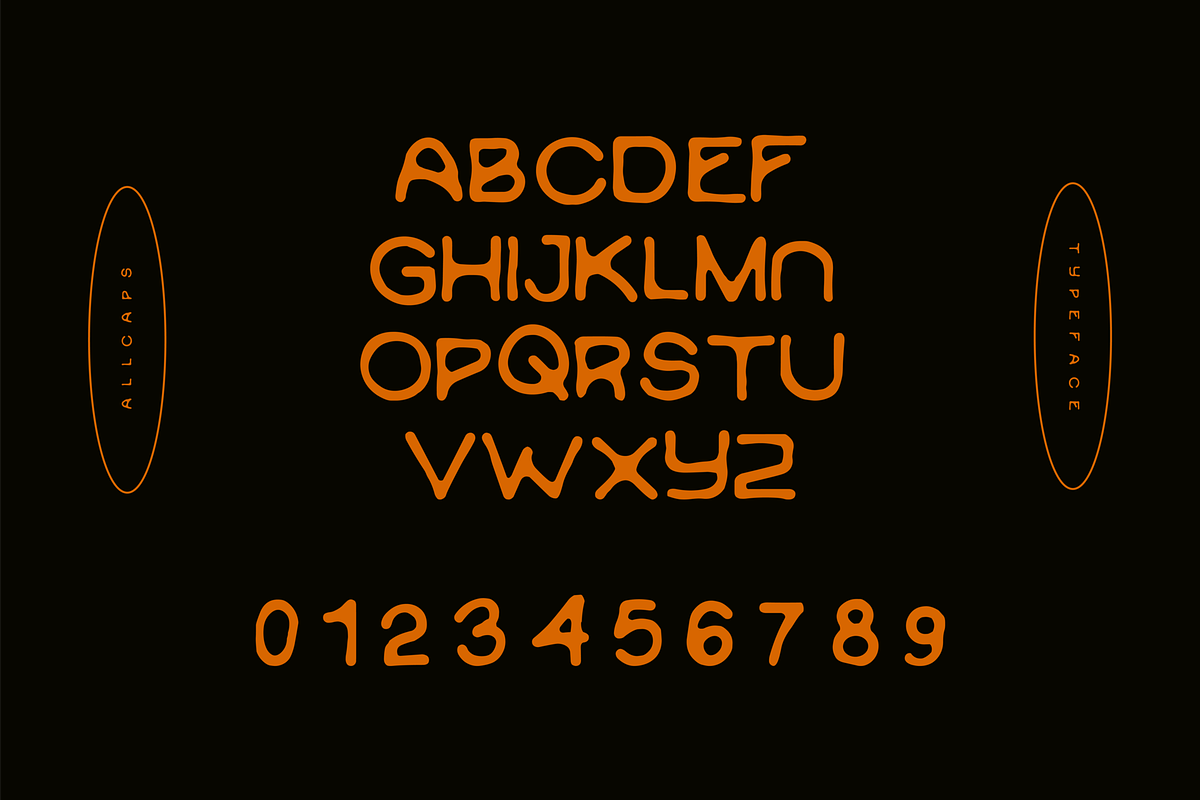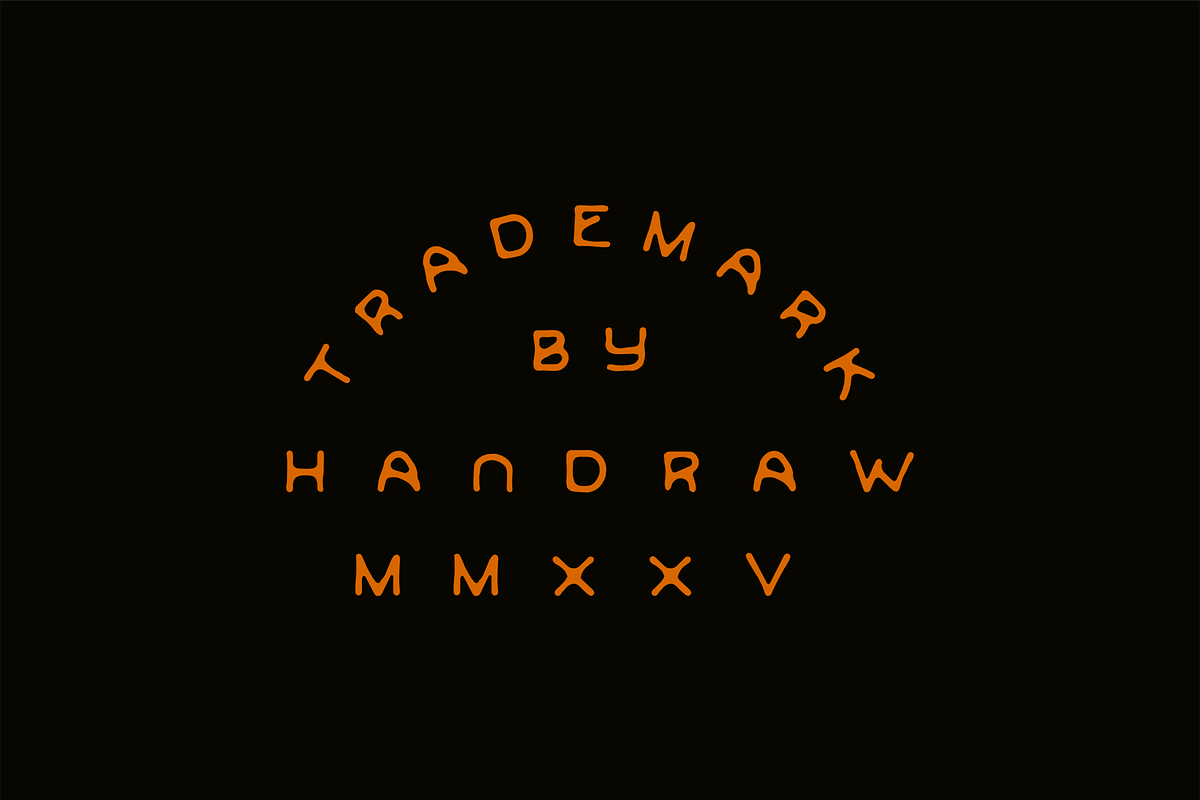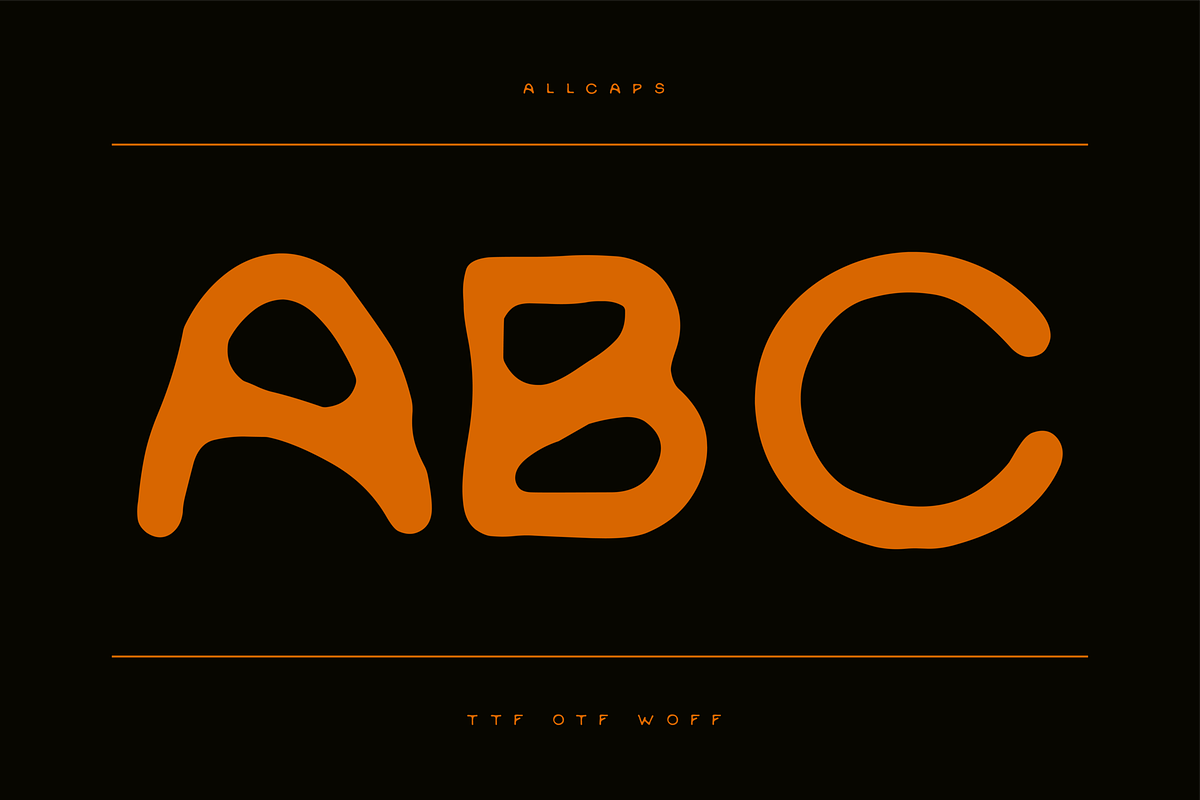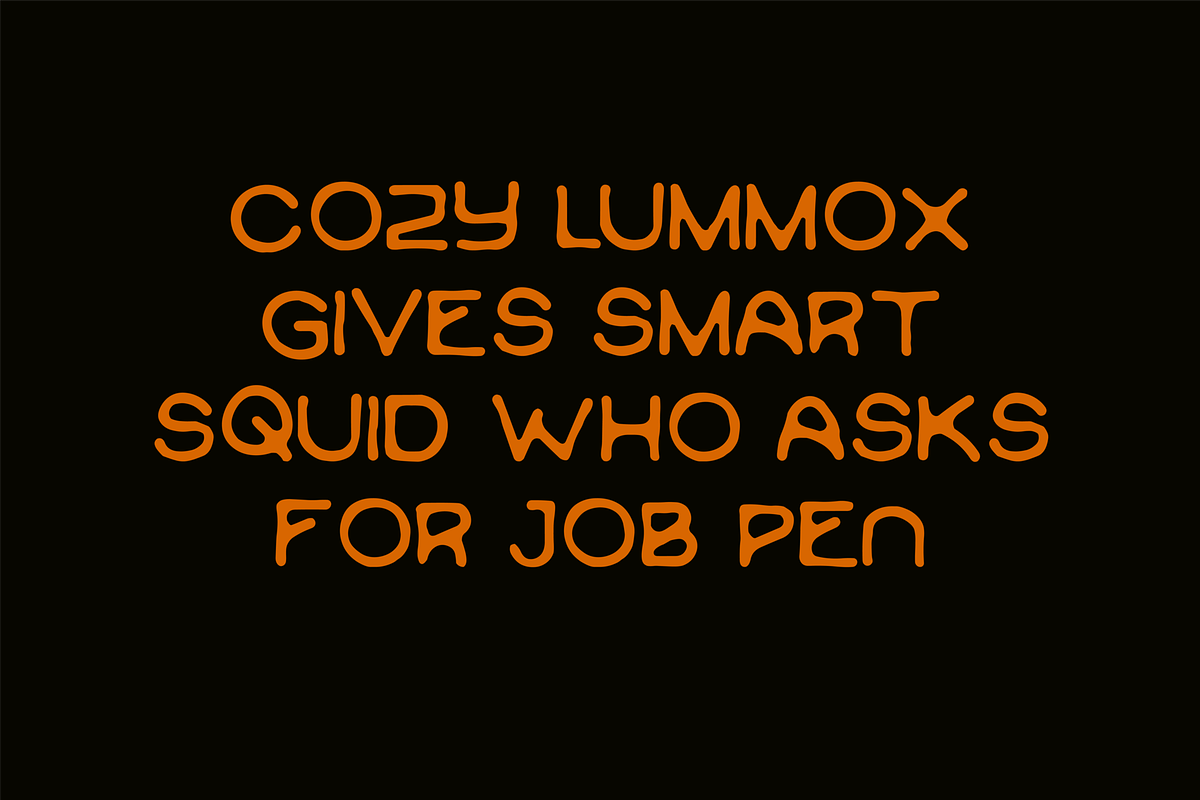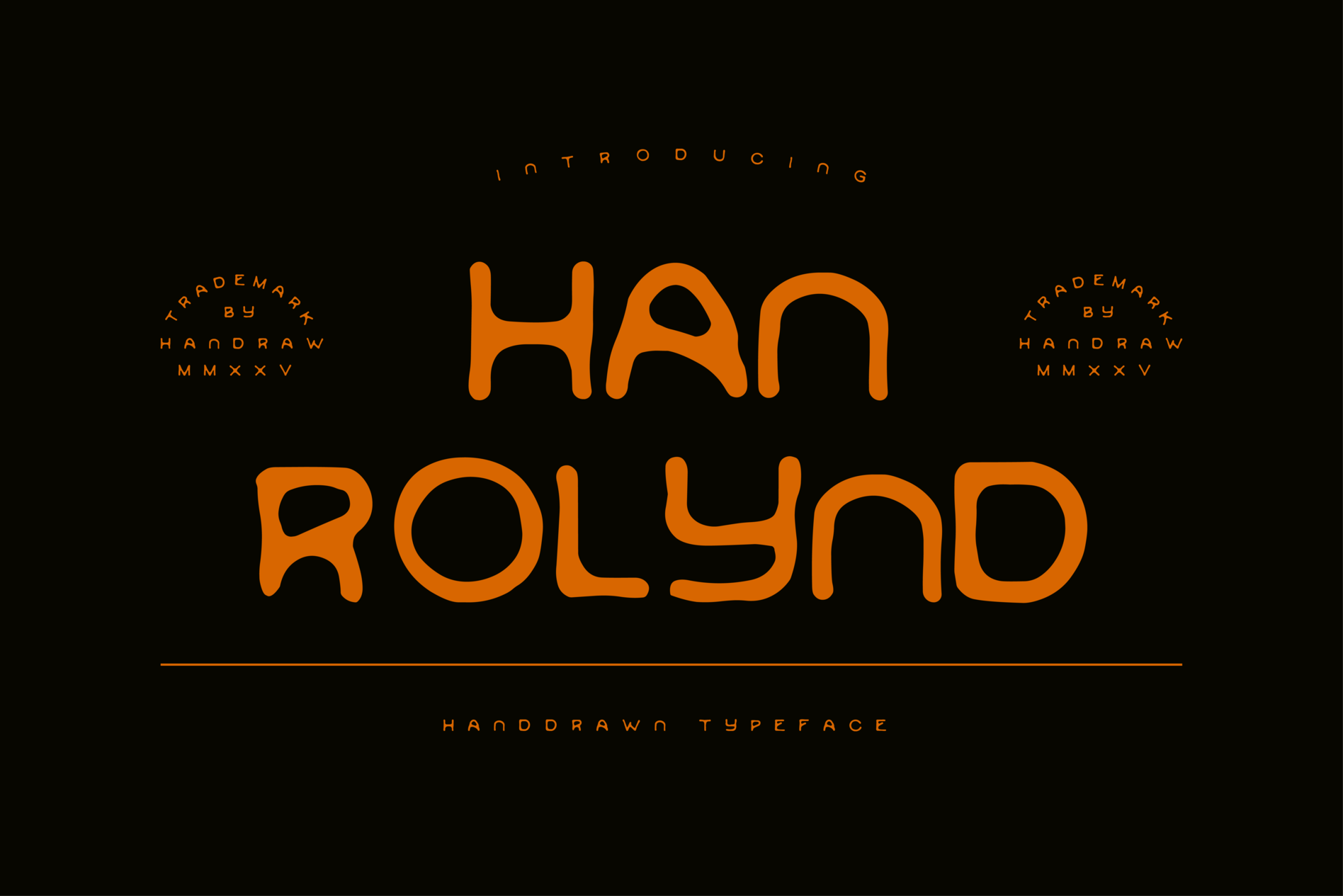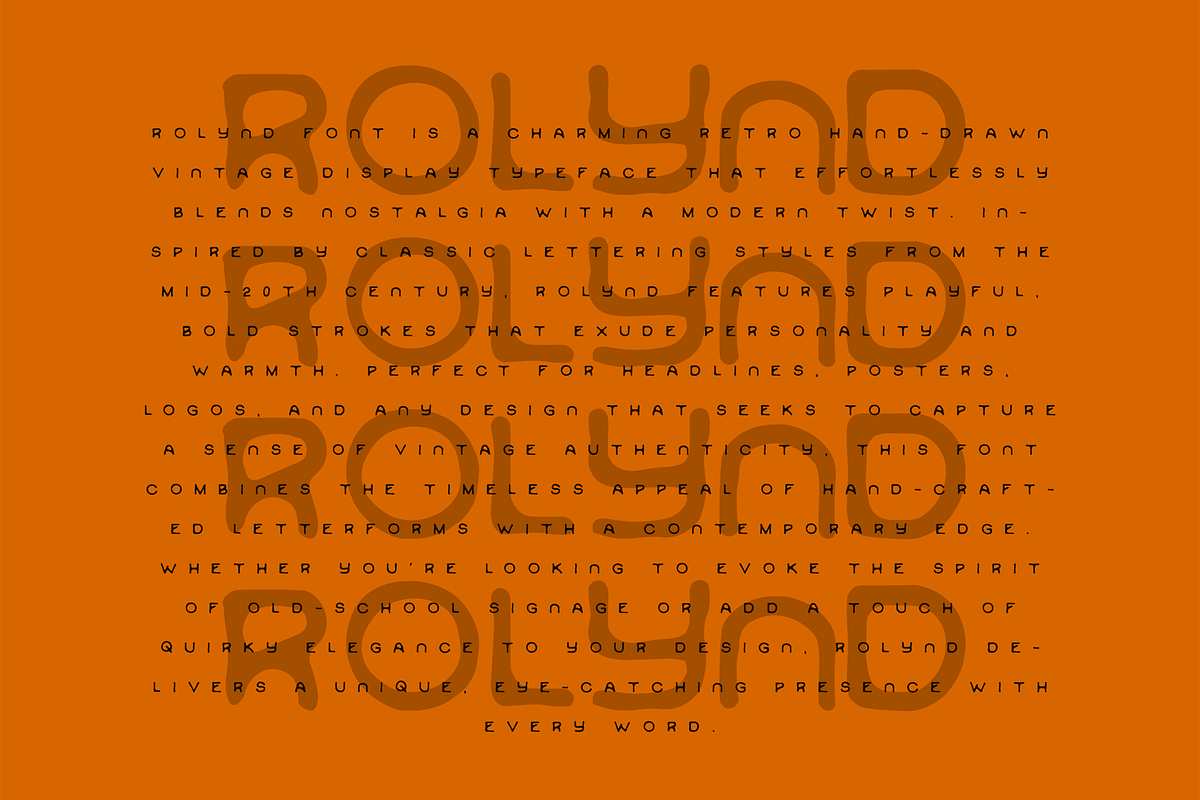
Rolynd - Handdrawn Font
Rolynd Font is a charming retro hand-drawn vintage display typeface that effortlessly blends nostalgia with a modern twist. Inspired by classic lettering styles from the mid-20th century, Rolynd features playful, bold strokes that exude personality and warmth. Perfect for headlines, posters, logos, and any design that seeks to capture a sense of vintage authenticity, this font combines the timeless appeal of hand-crafted letterforms with a contemporary edge. Whether you’re looking to evoke the spirit of old-school signage or add a touch of quirky elegance to your design, Rolynd delivers a unique, eye-catching presence with every word.